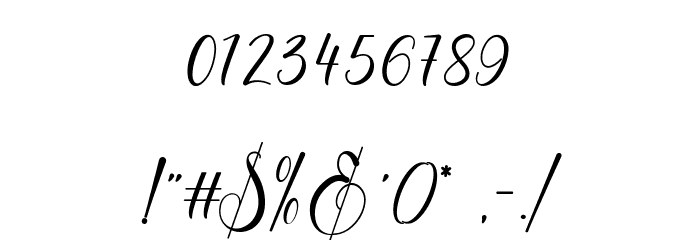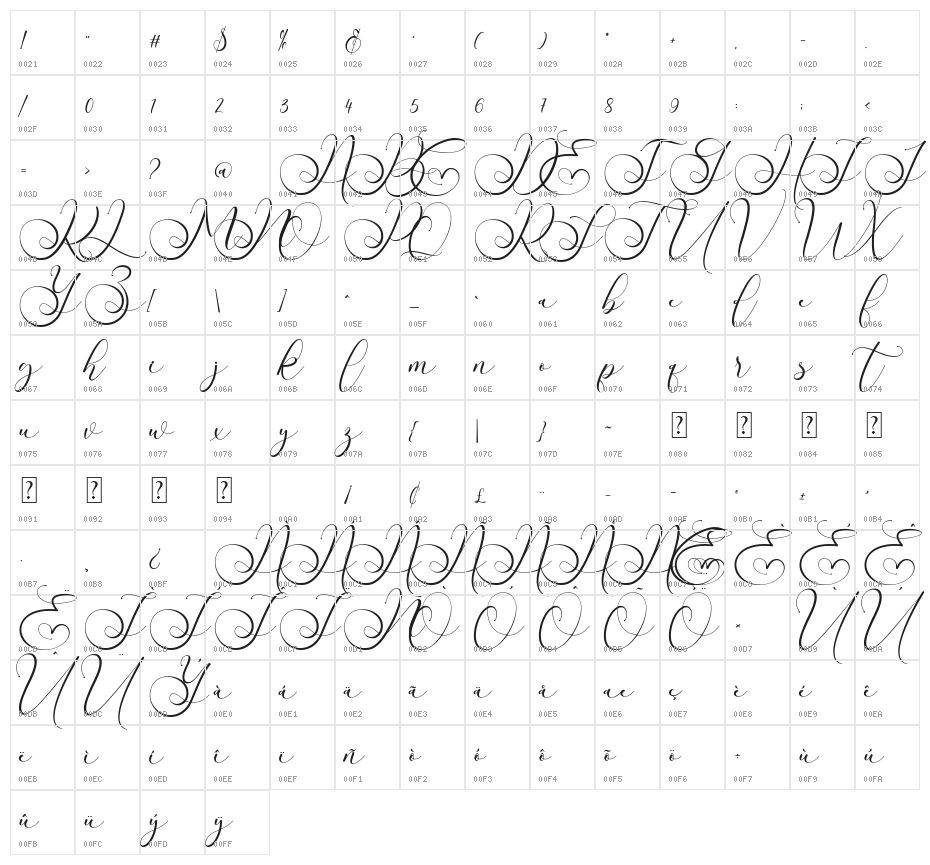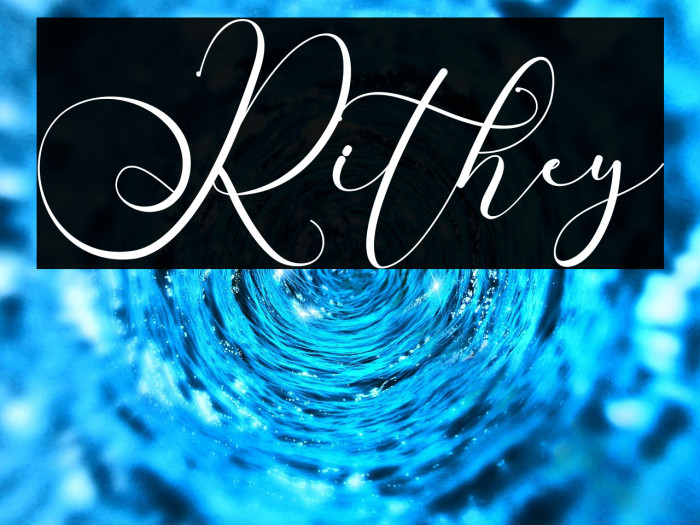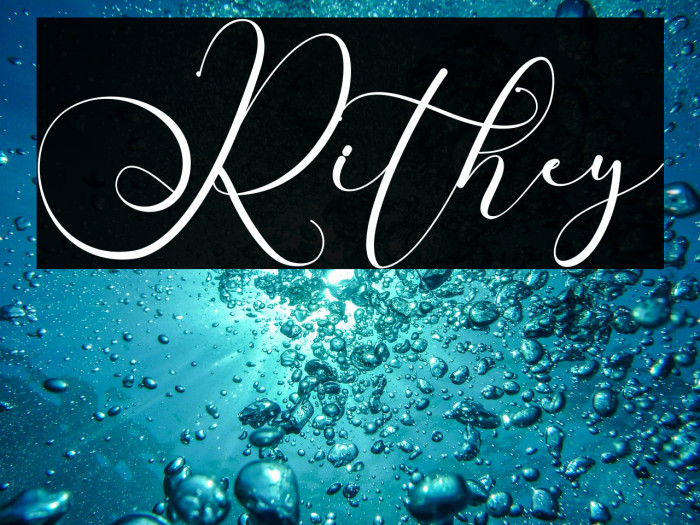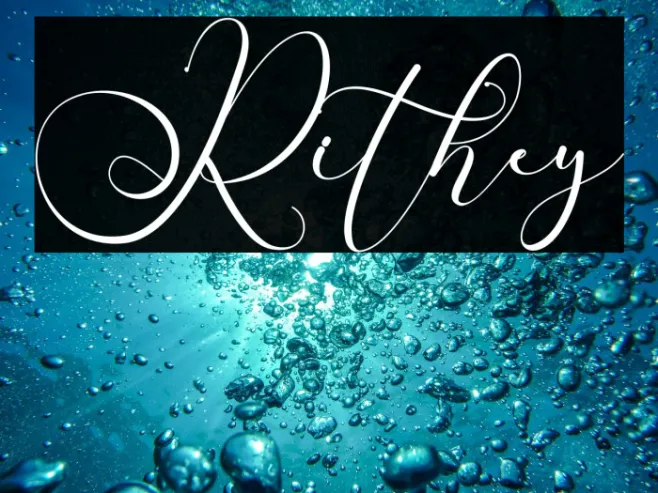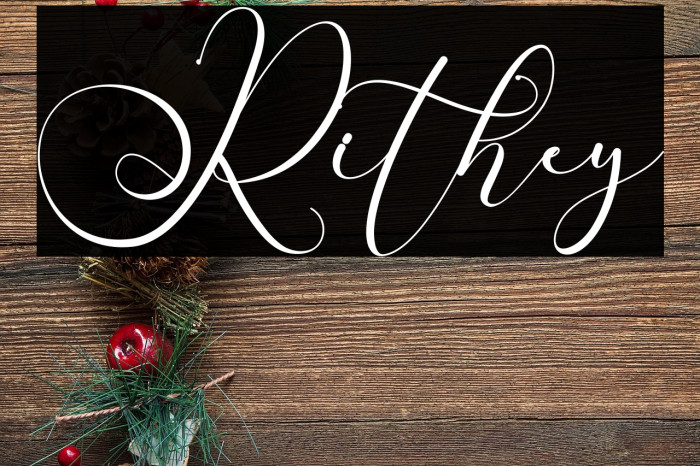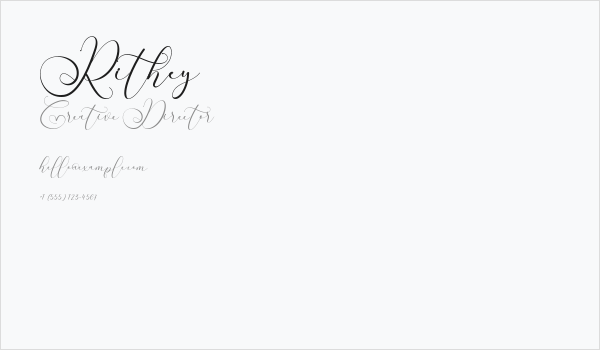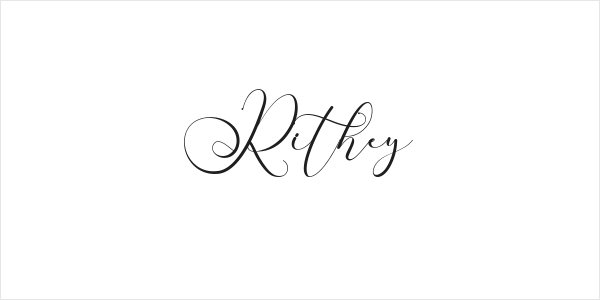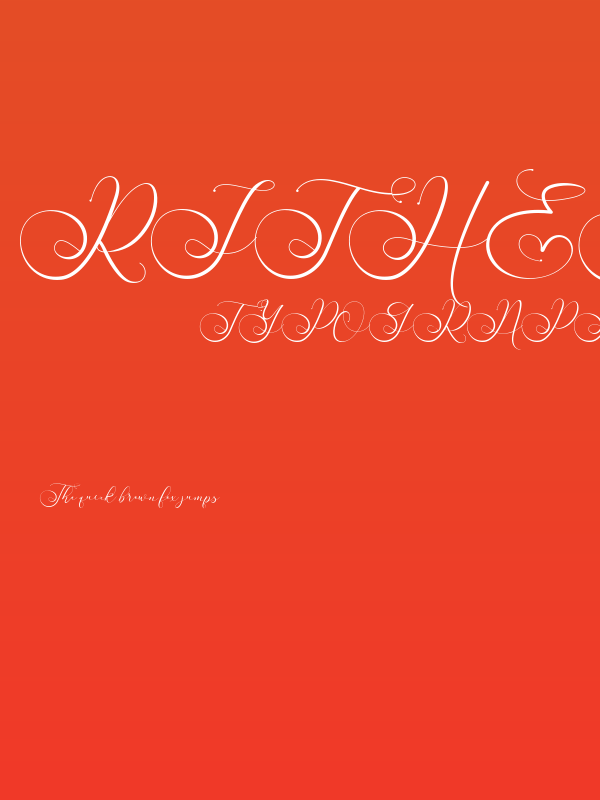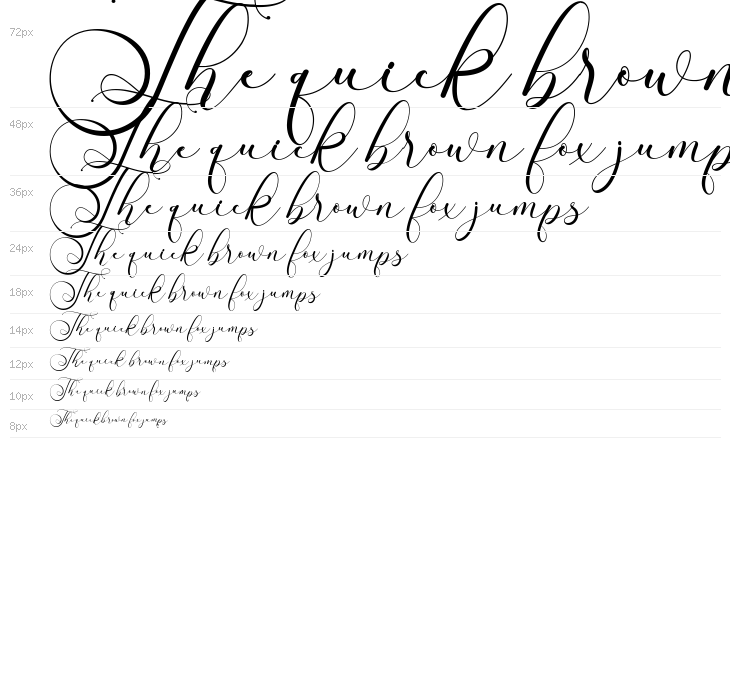
Rithey Font
Rithey Description
This elegant script font features intricate, flowing letterforms with a calligraphic style. The uppercase letters are adorned with decorative swirls and loops, adding a touch of sophistication and charm. The lowercase letters maintain a consistent fluidity, with some characters extending below the baseline, enhancing the font's graceful appearance. The numerals are designed to complement the overall style, maintaining the same elegant curves. Special characters are thoughtfully integrated, ensuring versatility in various design contexts. This font is perfect for projects that require a touch of elegance and refinement.
| Use Case | Headlines, Invitations, Branding |
| Proposed Projects | Ideal for wedding invitations, luxury branding, elegant stationery, and decorative headlines. |